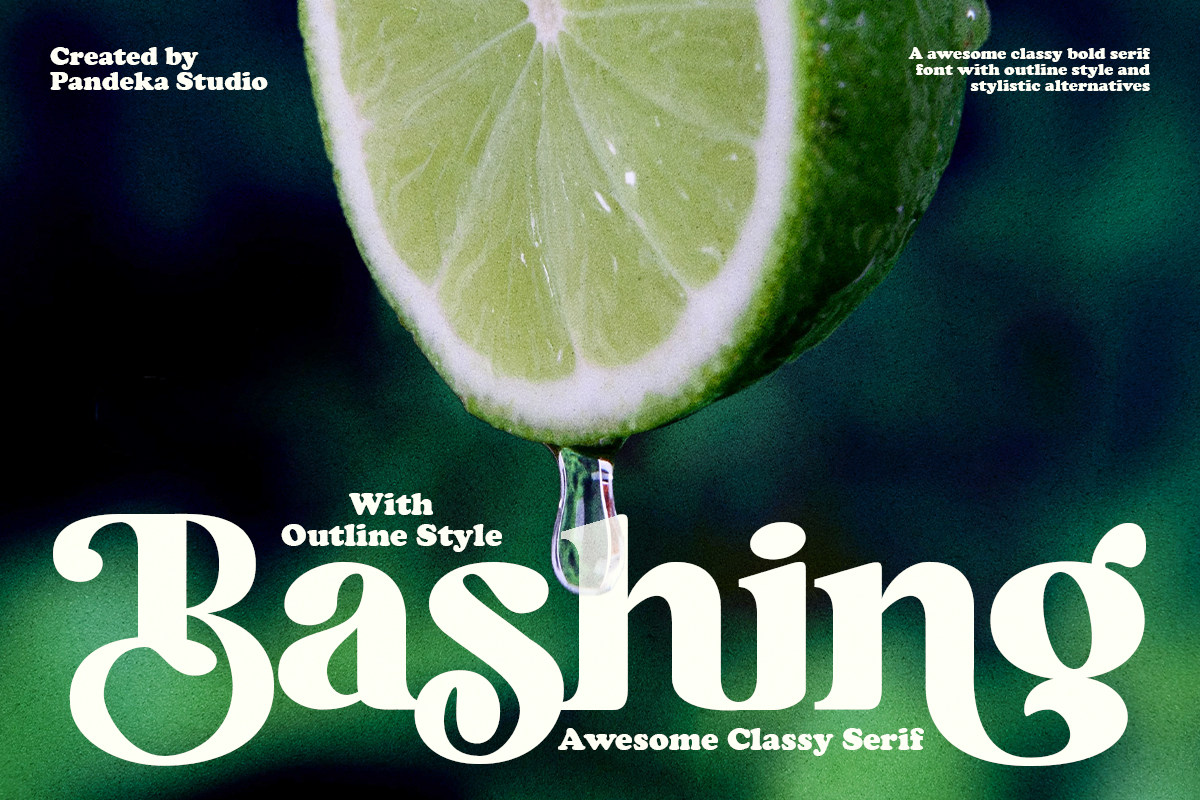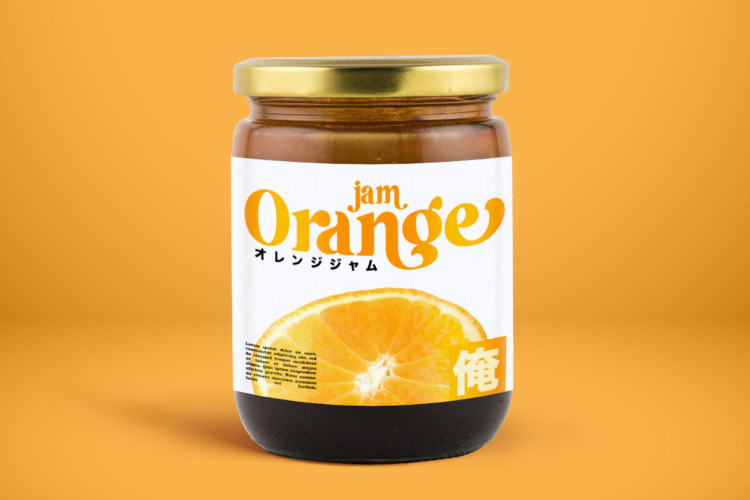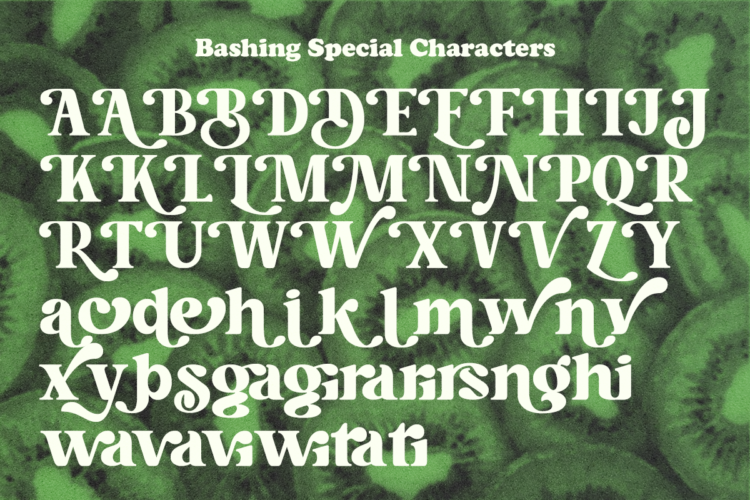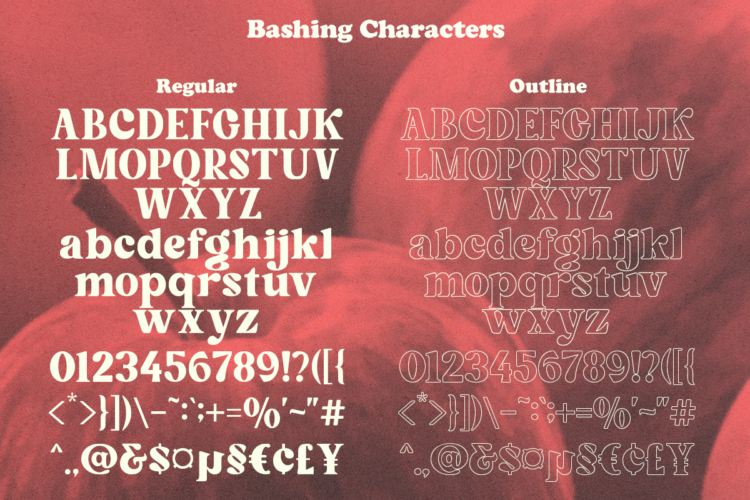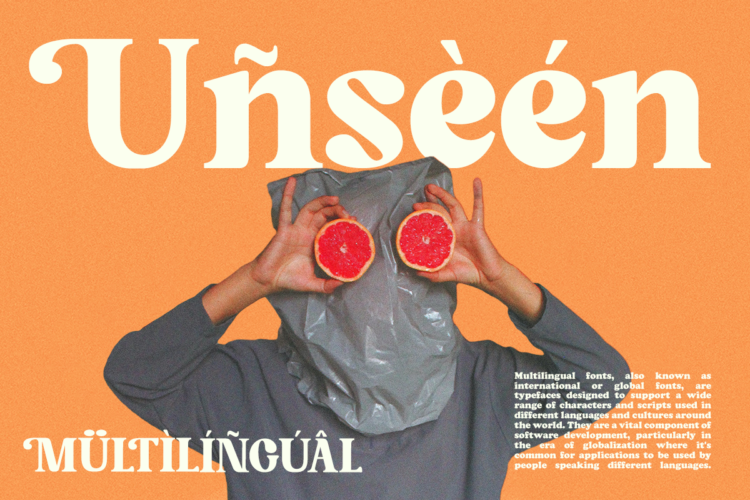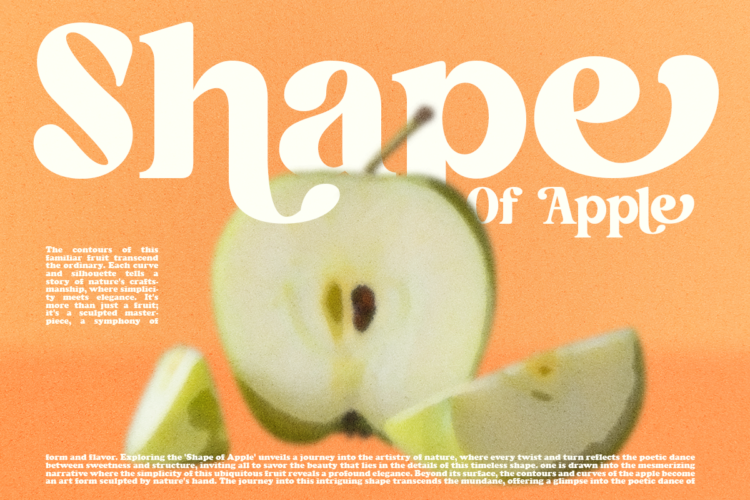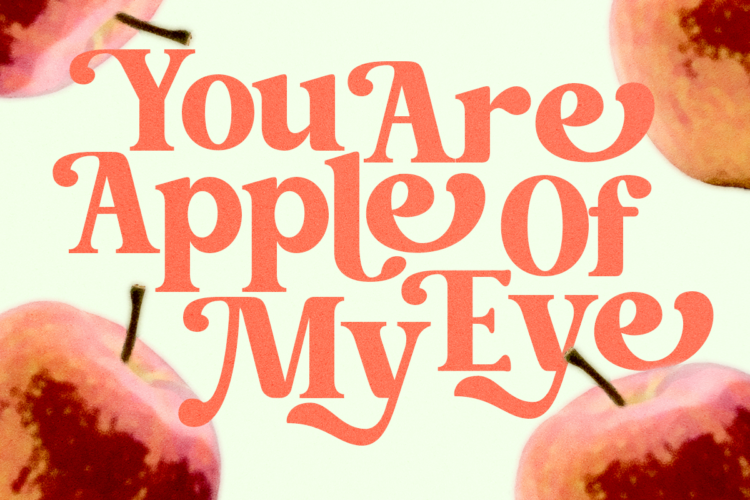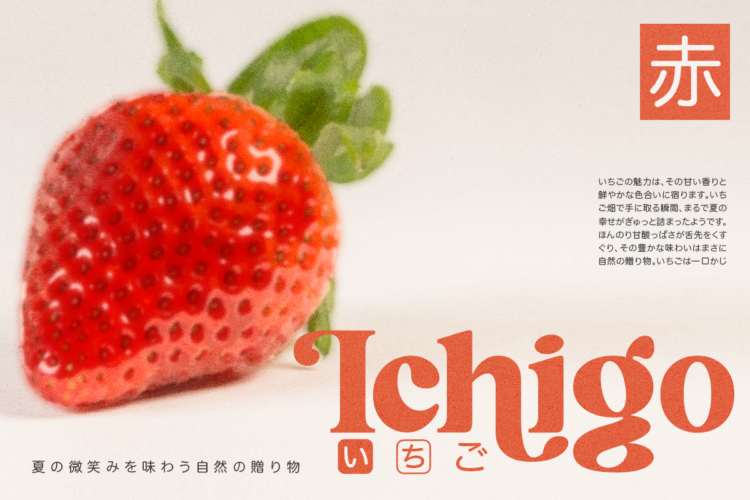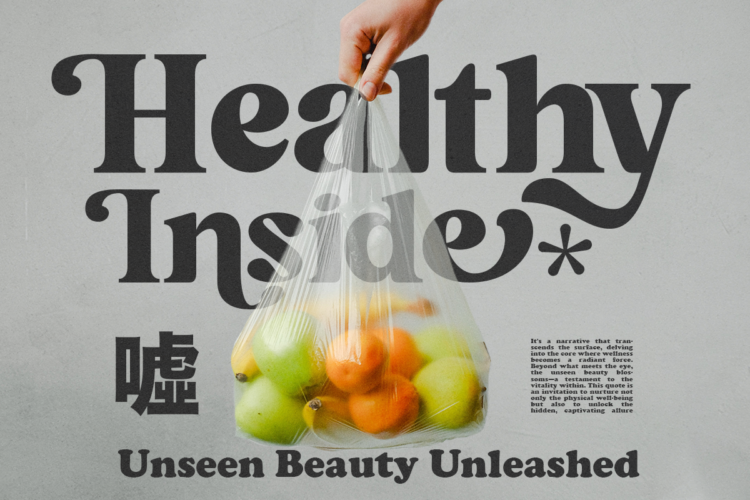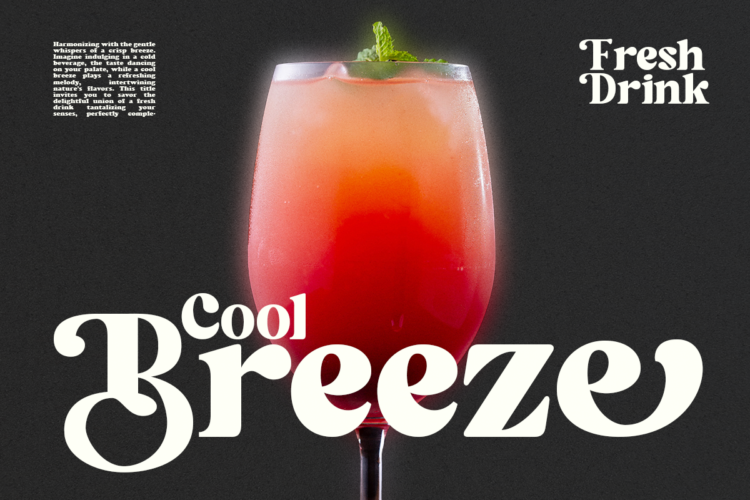
Bashing Regular
Bashing Outline
Introducing Bashing, an extra bold serif font with soft, charming rounded edges and curves.
Bashing brings chunky retro typography to the modern era and includes 70 additional special characters with extra flair and flourishes, providing you with a variety of custom text arrangements
Features
• Special Alternates and Ligatures and Outline version
Bashing – Retro Swash Font